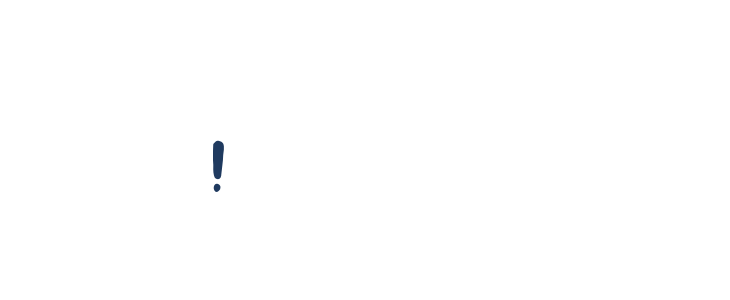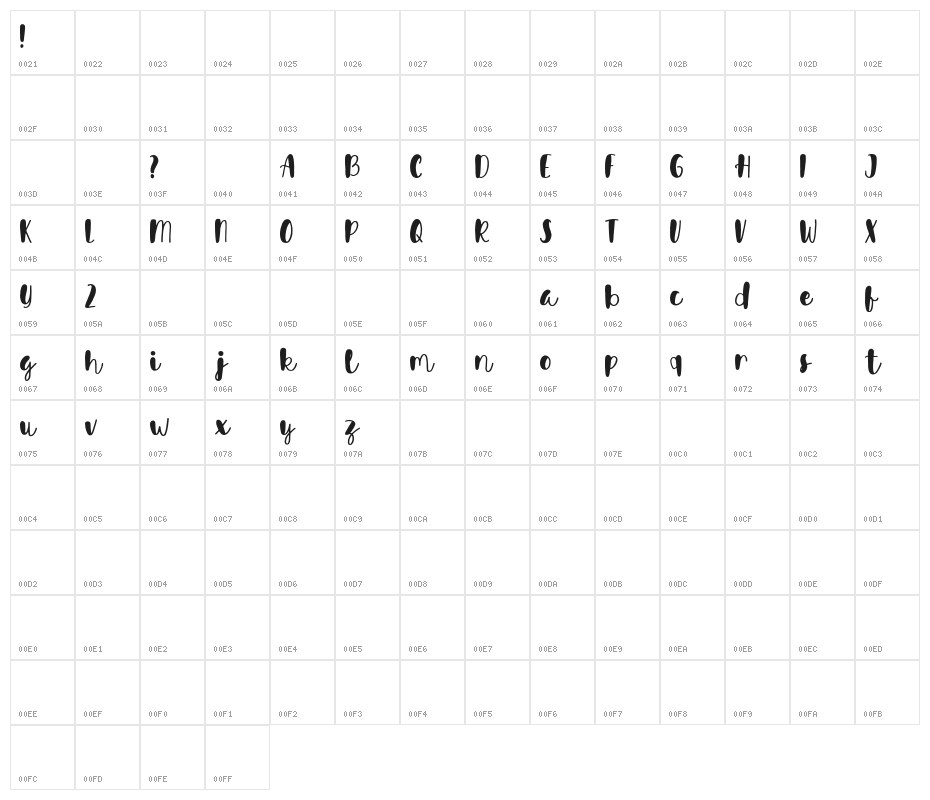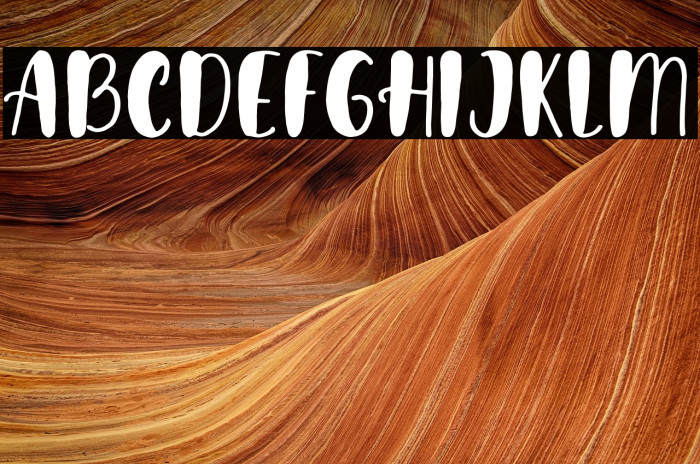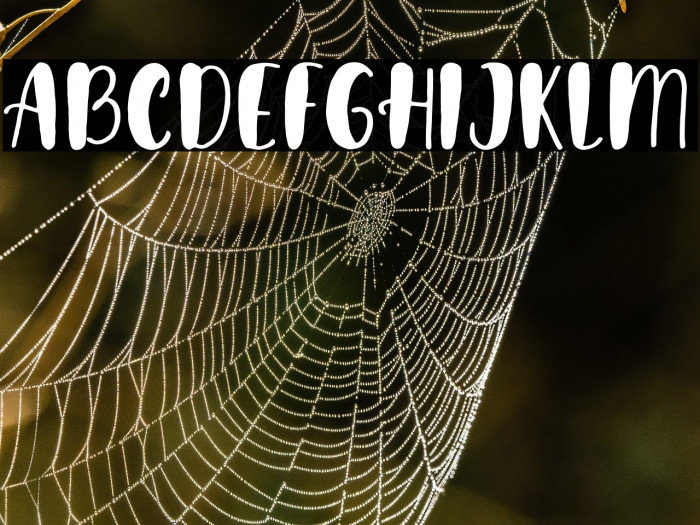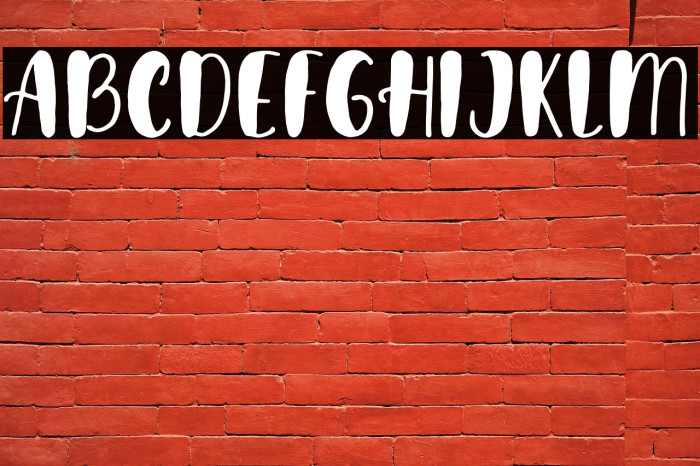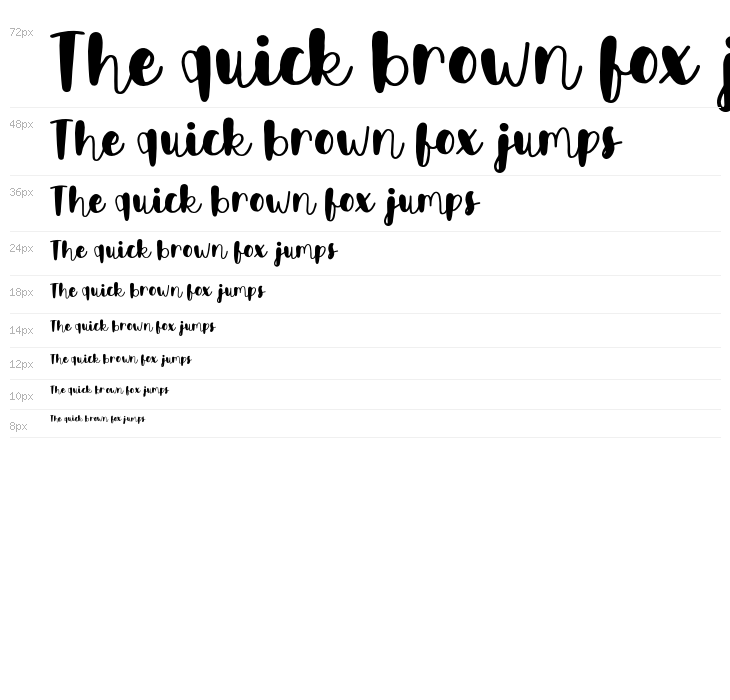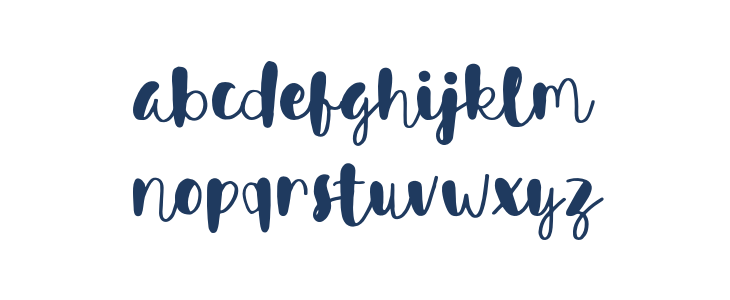
Avinda Font
Avinda Description
This font features a playful and bold script style with a handwritten feel. The characters are rounded and slightly irregular, giving it a casual and friendly appearance. The uppercase letters are tall and prominent, while the lowercase letters maintain a consistent flow with a slight slant. The font has a high contrast in stroke thickness, with some parts of the letters being significantly thicker than others, adding to its dynamic look. The exclamation mark is bold and matches the overall style, emphasizing the expressive nature of the font.
| Overall Style | Playful, Casual |
| Proposed Projects | Ideal for greeting cards, playful branding, children's books, and social media graphics. |